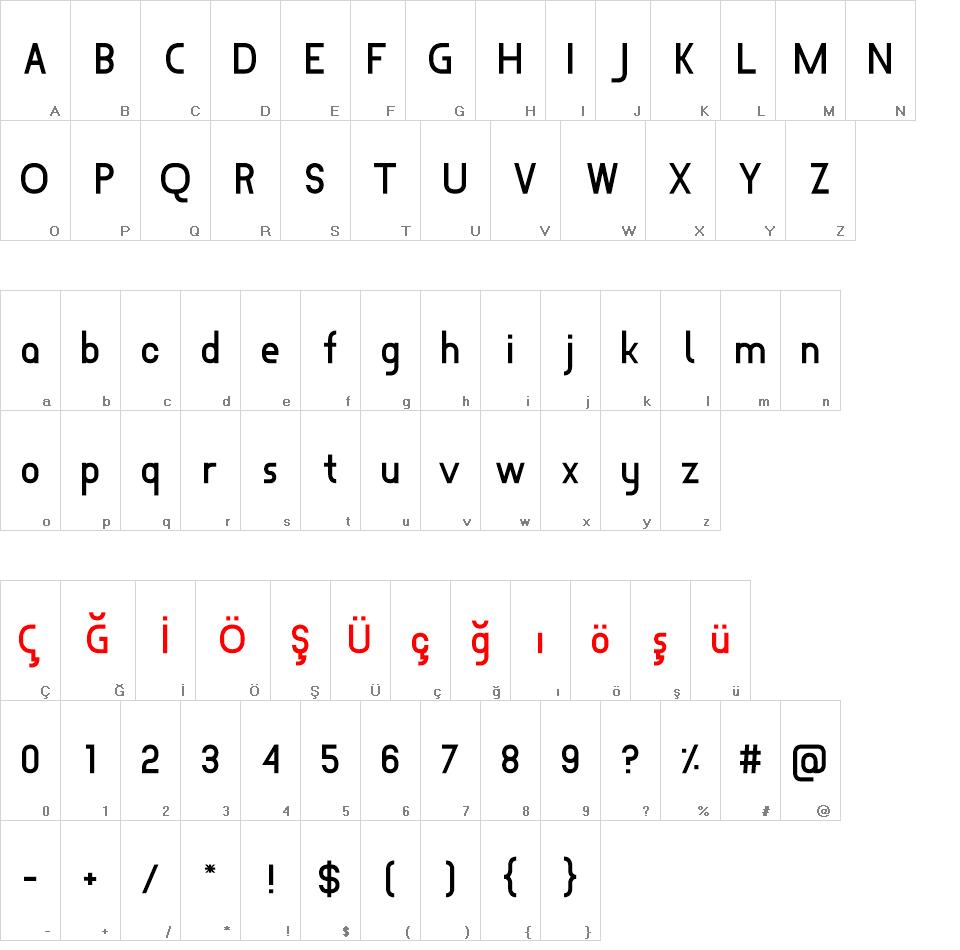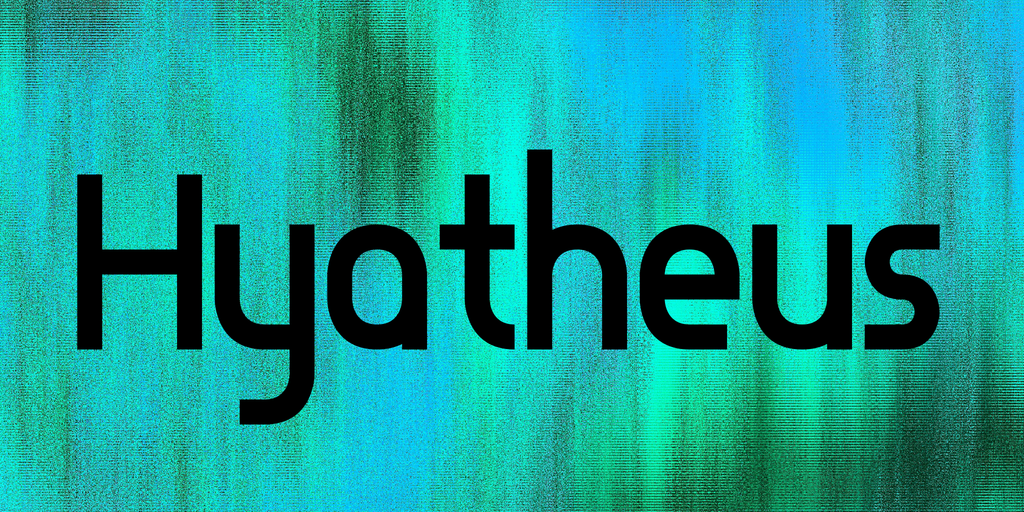
Hyatheus font
This font is now discontinued. However, I am working on a complete revamp - which should hopefully be ready soon. It will feature a bunch of new characters, ligatures, and overall improvements, but it will be uploaded as a separate font.
Hyatheus, a simple, bold, and yet unique font - recommended to use with a font size of 20 or bigger. Enjoy! Idea, Design, and everything else made by q_Maxi_p.
It currently contains all
-Basic Latin
-Latin Supplement
-Latin Extended A
-Latin Extended B*
-IPA Extensions
-Spacing Modifying Characters
-Diacritical Mark Generation
-Greek & Coptic
-Cyrillic
-Cyrillic Supplement
Characters, as of version 1.2.
Besides that, I'll prioritize on extending Punctuation and script supplements- and I'll probably add other simple scripts such as Armenian in the near future.